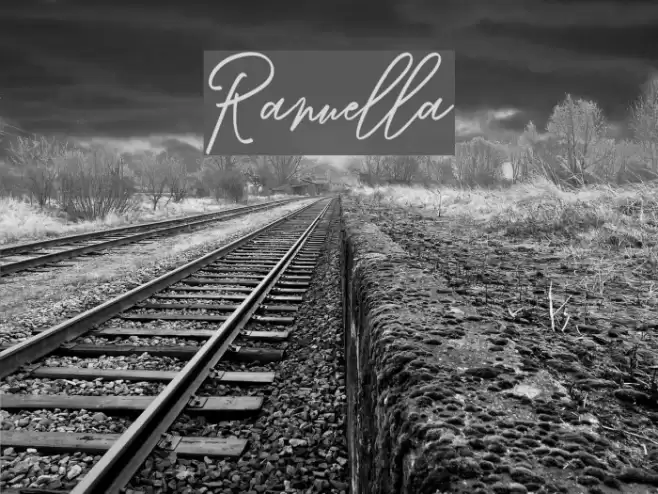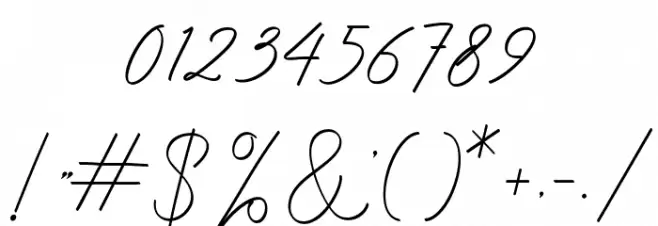
Ranuella Font
Ranuella Description
This elegant script font features fluid, connected strokes that mimic the natural flow of handwriting. The uppercase letters are slightly larger and more ornate, while the lowercase letters maintain a consistent, smooth rhythm. The numerals are clear and distinct, matching the overall cursive style. Special characters are thoughtfully designed to blend seamlessly with the letters, enhancing the font's cohesive appearance. The font exudes a sense of sophistication and grace, making it ideal for projects that require a personal touch.
A graceful script font with fluid, connected strokes and a handwritten style from Uncategorized fonts.
- Proposed Projects: Ideal for wedding invitations, greeting cards, personal branding, and elegant logos.
- Overall Style: Elegant
- Use Case: Logos, Invitations, Personal Branding